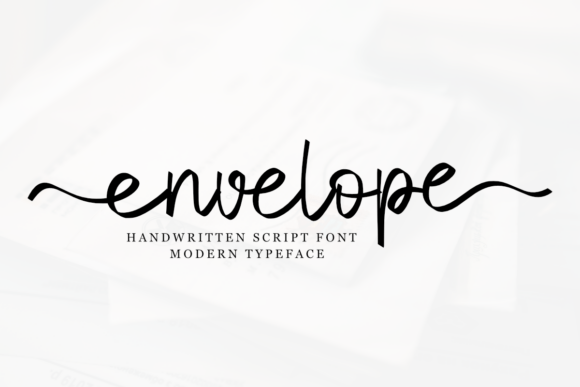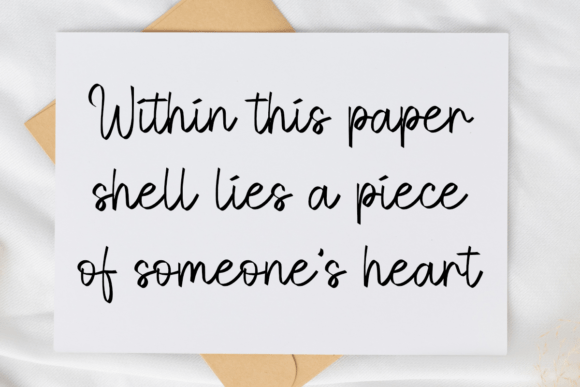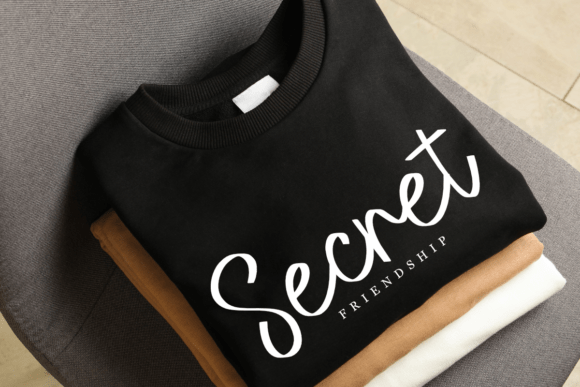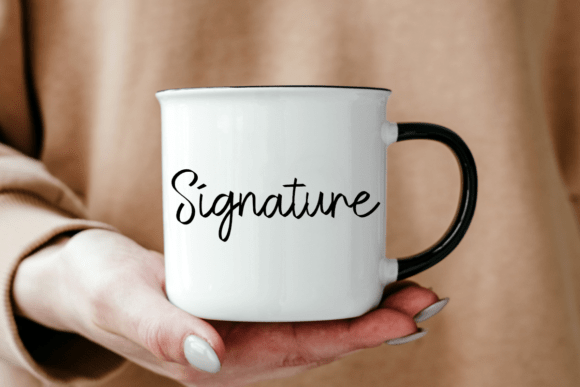
Envelope Font
About the Envelope Font
Get ready to be inspired by Envelope Font, a fresh and dynamic typeface for modern creators. Envelope is a beautifully flowing and elegant handwritten script font that exudes a sense of personal touch and modern sophistication. Its graceful, cursive letterforms feature smooth connections and stylish swashes, creating a distinctly natural and refined aesthetic. This modern typeface is incredibly versatile and perfect for adding a touch of handwritten charm to a wide range of creative projects. Imagine Envelope enhancing elegant wedding invitations, sophisticated branding materials, personalized stationery, heartfelt greeting cards, stylish social media graphics, beautiful quotes, eye-catching logos, and a variety of other exquisite designs. Its natural and flowing style makes it exceptionally well-suited for products targeting end-users who appreciate a personal and elegant touch, including those who use Cricut for personalized gifts, sublimation for stylish merchandise like mugs and apparel, and create beautiful stickers and planner elements.
Envelope Font Usage Examples
Envelope Font Example